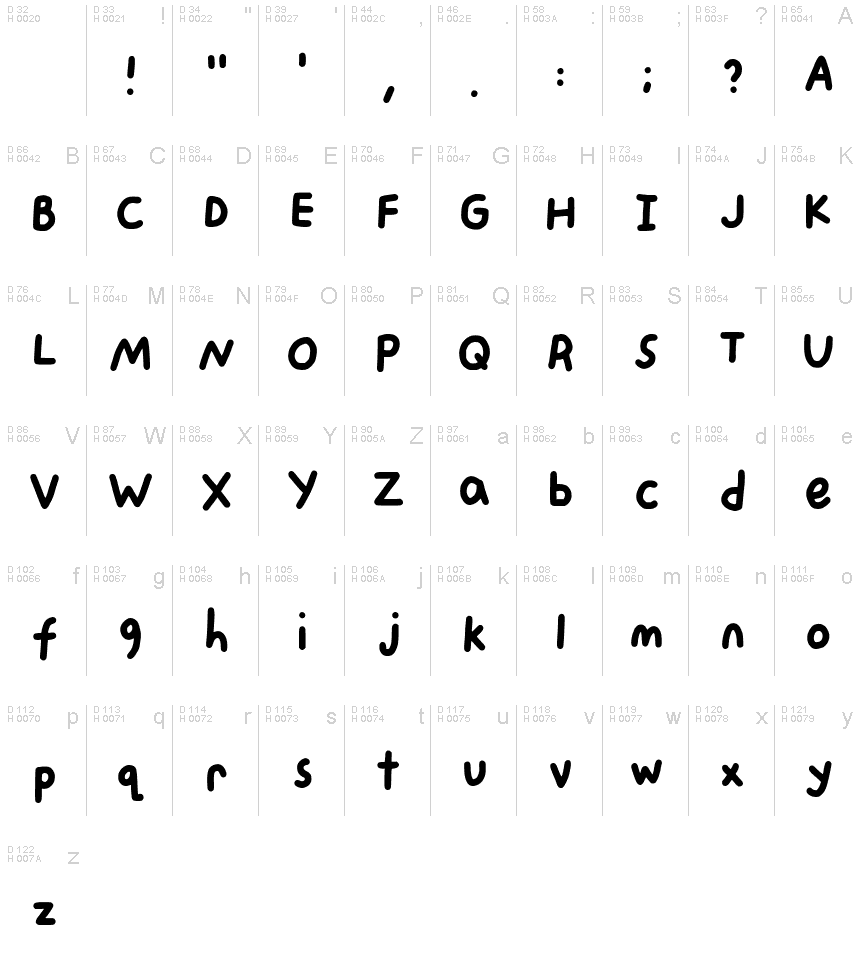
Cweyons Regular
Introducing Cweyons Regular, a handmade font family created by cweyons for a unique and creative look. This font is perfect for projects that need a personal touch, from branding designs to stationery and more.